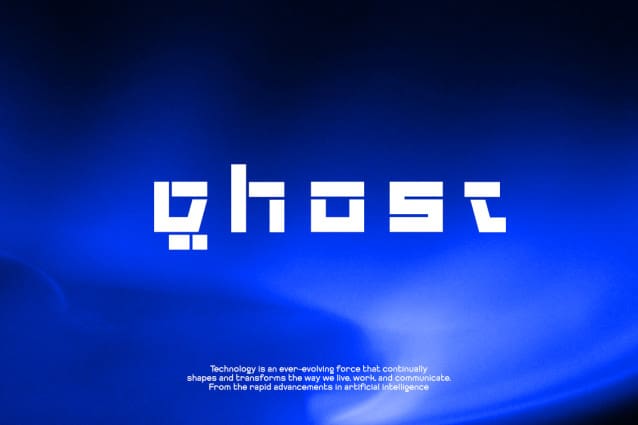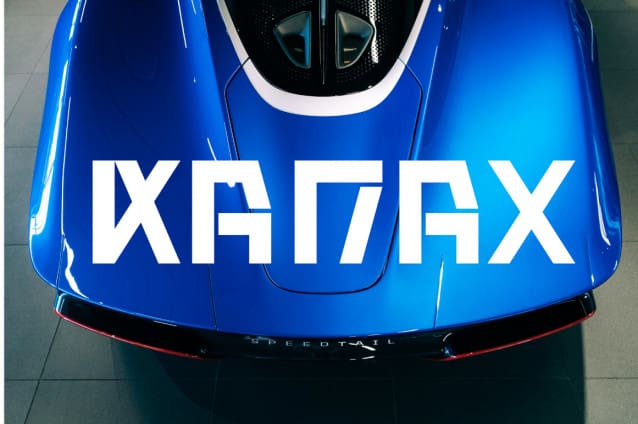
FF Ghost Font
FF Ghost Font a font that transcends the ordinary and propels your message into the realm of the extraordinary. Our techno-inspired font is a symphony of clean lines, sharp angles and dynamic shapes, meticulously designed to evoke a feeling of modernity and innovation. Each character vibrates with energy, creating a rhythm that resonates with the digital heartbeat of the.